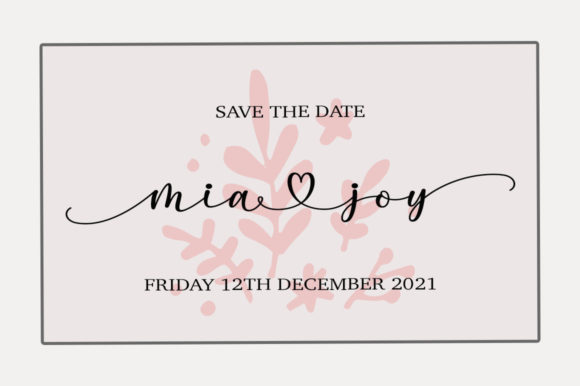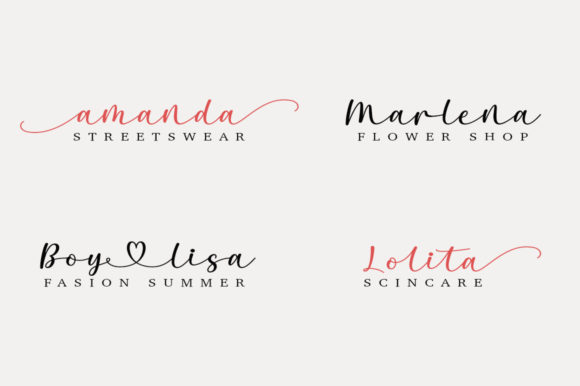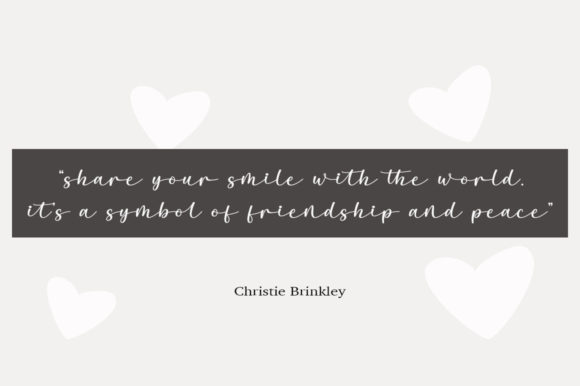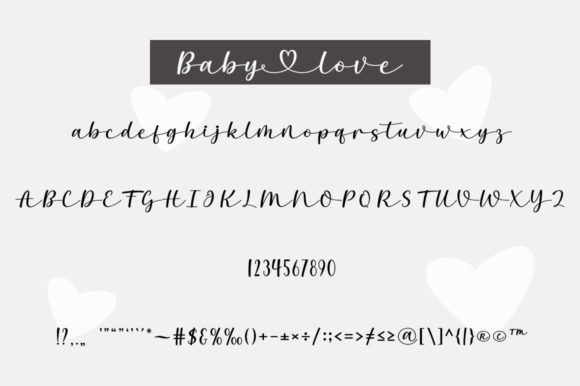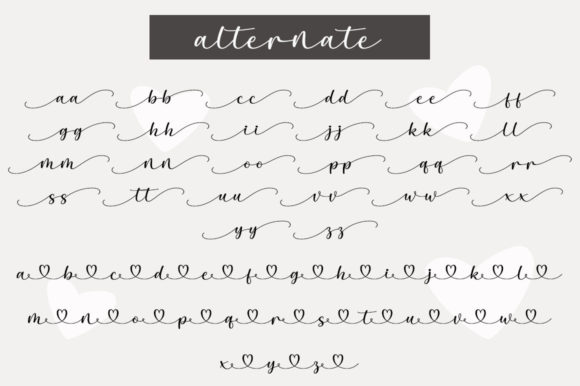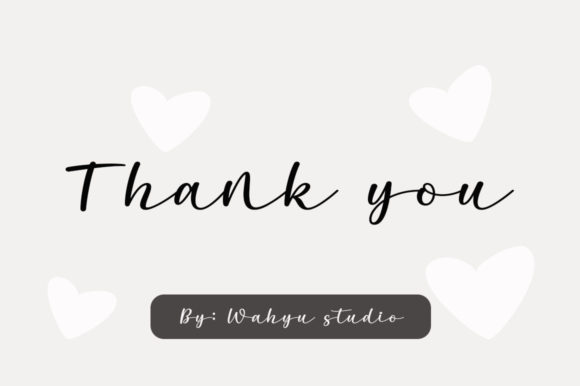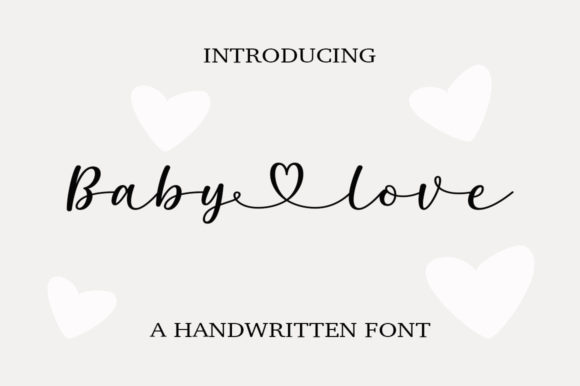
Baby Love Font: The Ultimate Romantic Calligraphy Typeface for Designers and Crafters
Are you looking for a font that can add a touch of luxury and romance to your design projects? Look no further than the Baby Love Font! This beautiful calligraphy typeface is perfect for designers and crafters who want to create stunning and elegant designs that exude love and sophistication.
What Makes Baby Love Font So Special?
Baby Love Font is a romantic and sweet calligraphy typeface that features characters that dance along the baseline, creating a sense of movement and fluidity. This unique design makes it perfect for creating beautiful and eye-catching designs that are sure to capture the attention of your audience.
One of the standout features of Baby Love Font is its PUA (Private Use Area) encoding. This means that you can access all of the amazing glyphs and ligatures with ease, giving you complete creative control over your designs. Whether you’re creating a wedding invitation, a romantic poster, or a beautiful craft project, Baby Love Font has everything you need to make it special.
Perfect for Luxury Designs
Baby Love Font is designed to add a luxury spark to any design project. Its elegant and sophisticated design makes it perfect for high-end brands, wedding designers, and crafters who want to create beautiful and unique products. Whether you’re creating a logo, a brochure, or a social media graphic, Baby Love Font is sure to elevate your design to the next level.
With Baby Love Font, you can create stunning designs that are sure to impress your clients or customers. Its romantic and sweet design makes it perfect for creating beautiful wedding invitations, anniversary cards, and other romantic designs. You can also use it to create gorgeous craft projects, such as handmade cards, scrapbook pages, and DIY decorations.
Key Features of Baby Love Font
• Romantic and sweet calligraphy typeface: Baby Love Font features a beautiful and elegant calligraphy design that is perfect for creating romantic and sophisticated designs.
• PUA encoded: With PUA encoding, you can access all of the amazing glyphs and ligatures with ease, giving you complete creative control over your designs.
• Characters that dance along the baseline: The unique design of Baby Love Font features characters that dance along the baseline, creating a sense of movement and fluidity.
• Luxury spark: Baby Love Font is designed to add a luxury spark to any design project, making it perfect for high-end brands and designers.
Tips and Tricks for Using Baby Love Font
• Experiment with different colors and textures: Baby Love Font looks stunning in a variety of colors and textures. Experiment with different combinations to find the one that works best for your design.
• Use it with other fonts: Baby Love Font pairs beautifully with other fonts. Try using it with a bold font for a striking contrast.
• Pay attention to spacing and kerning: To get the most out of Baby Love Font, make sure to pay attention to spacing and kerning. This will help you create beautiful and balanced designs.
In conclusion, Baby Love Font is a beautiful and romantic calligraphy typeface that is perfect for designers and crafters who want to create stunning and elegant designs. With its PUA encoding, unique design, and luxury spark, it’s the perfect addition to any design project. Whether you’re creating a wedding invitation, a romantic poster, or a handmade craft project, Baby Love Font is sure to elevate your design to the next level.